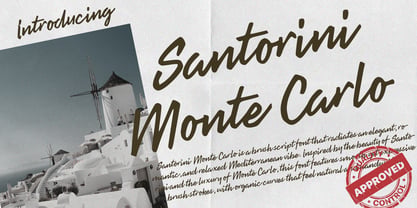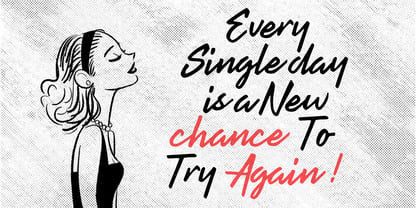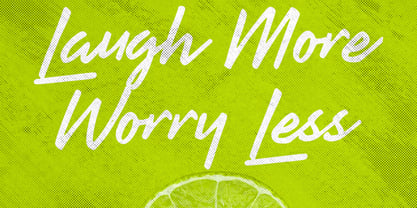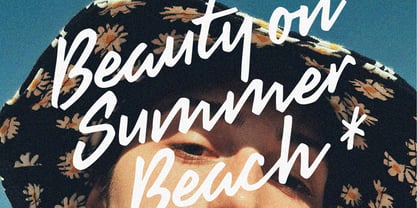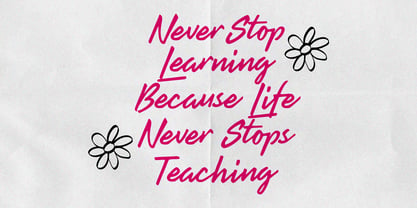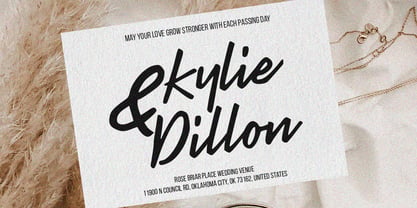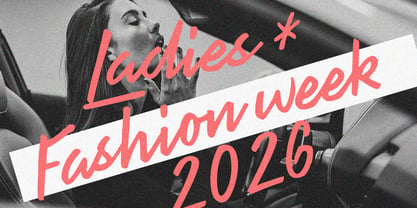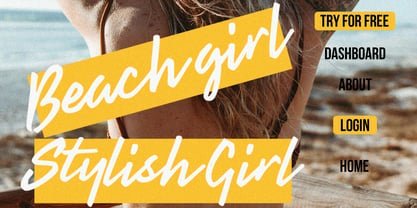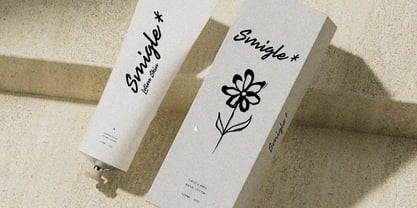
Introduce Santorini Monte Carlo
The Introduce Santorini Monte Carlo Font Family was designed by Ainal Mardiah and published by Metasena Typefoundry. Introduce Santorini Monte Carlo contains 1 styles. More about this family
Santorini Monte Carlo | Handwritten is a semi-brush handmade font that blends natural brush strokes with a refined modern touch. Designed to feel expressive yet controlled, this typeface delivers a warm, artistic, and elegant personality while maintaining excellent readability. Inspired by the romantic atmosphere of Santorini and the timeless sophistication of Monte Carlo, this font features smooth flowing letterforms, subtle texture, and balanced stroke variations. Each character reflects a handcrafted feel, creating an authentic and personal impression, as if written by hand with intention. Santorini Monte Carlo | Handwritten is perfect for: Wedding invitations & special events Branding, logos, and signature designs Greeting cards, packaging, and labels Social media graphics, posters, and creative headlines This font brings a sense of effortless elegance and human charm, making it an ideal choice for designs that seek to feel stylish, intimate, and distinctive.